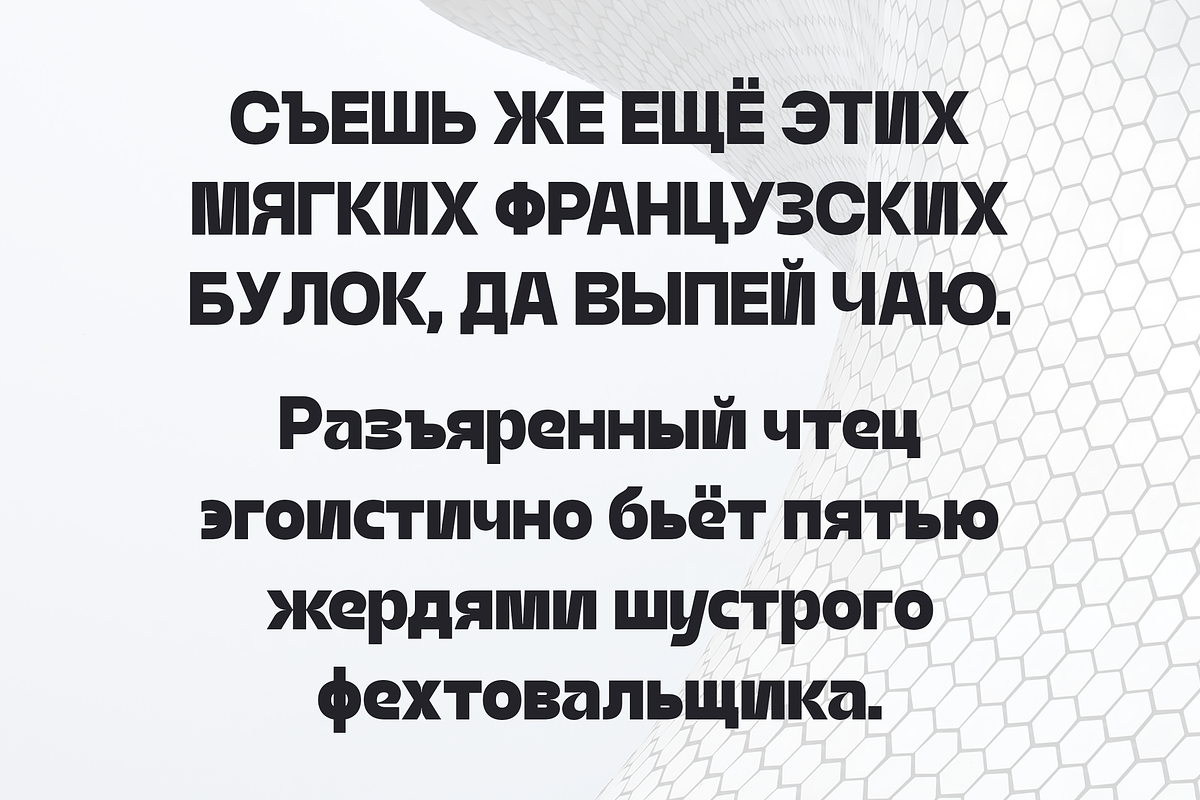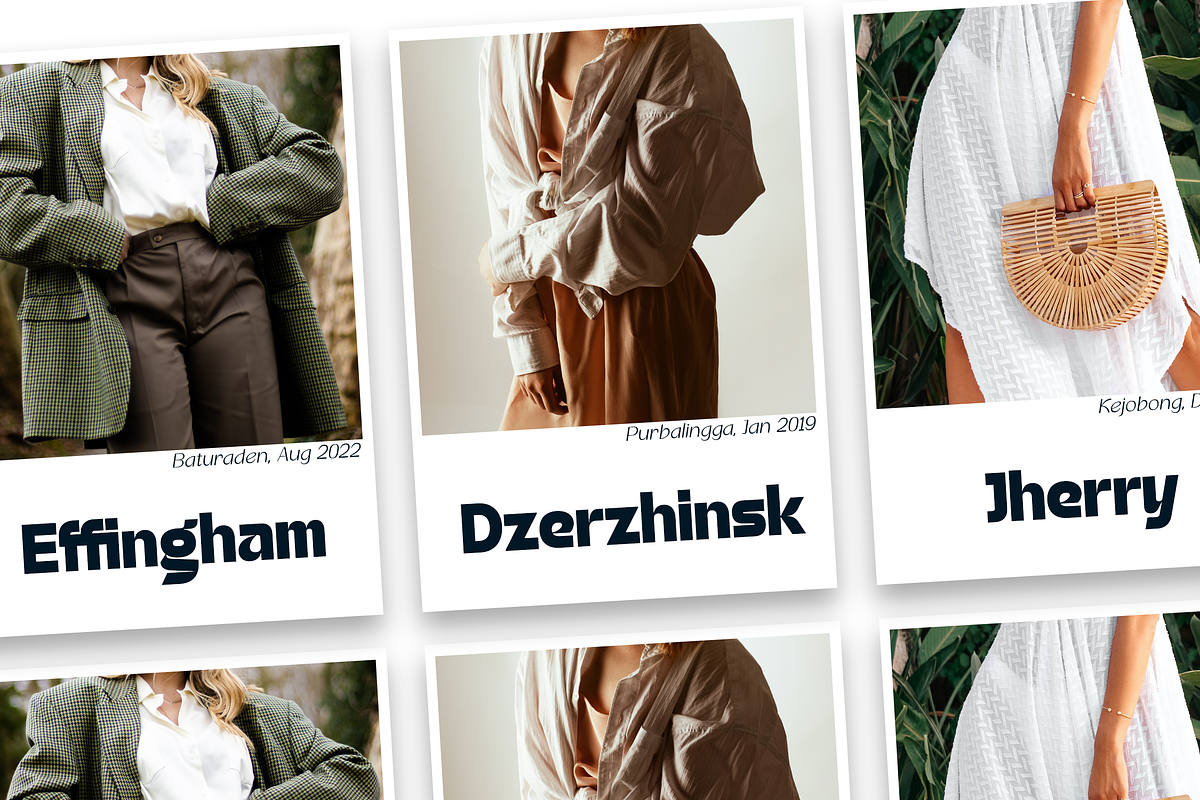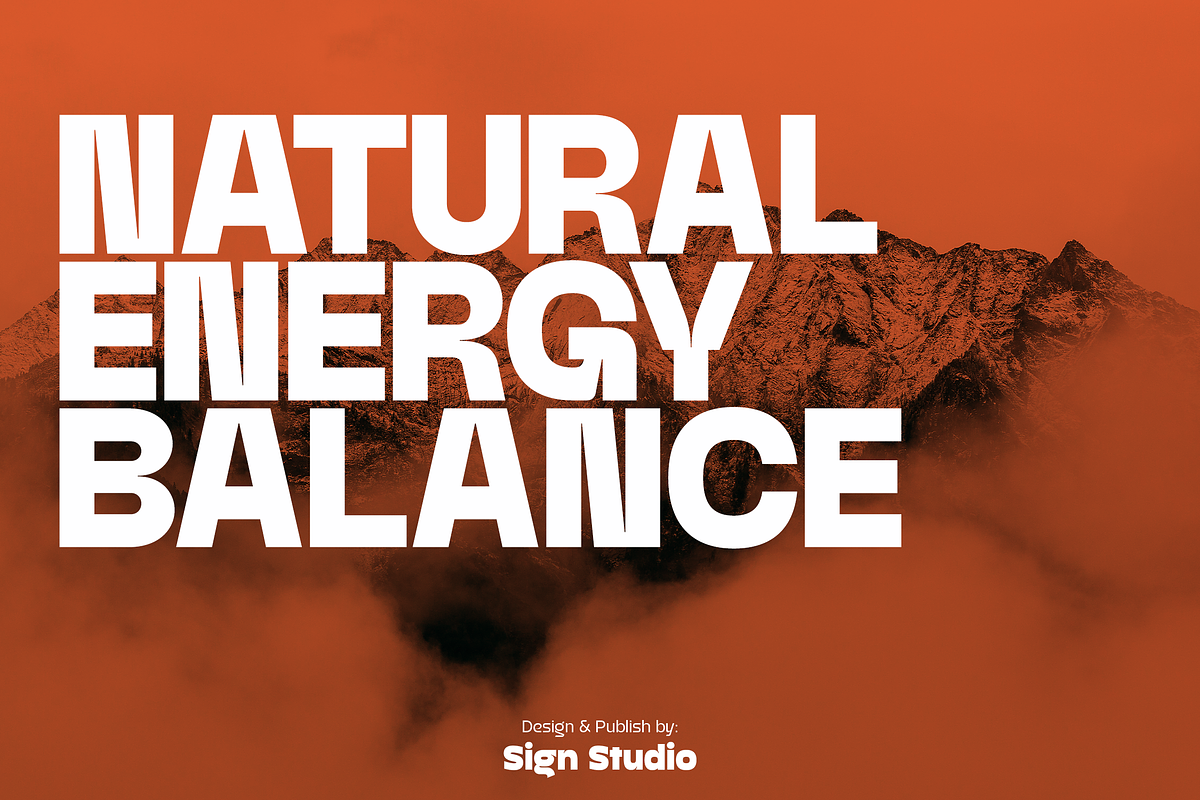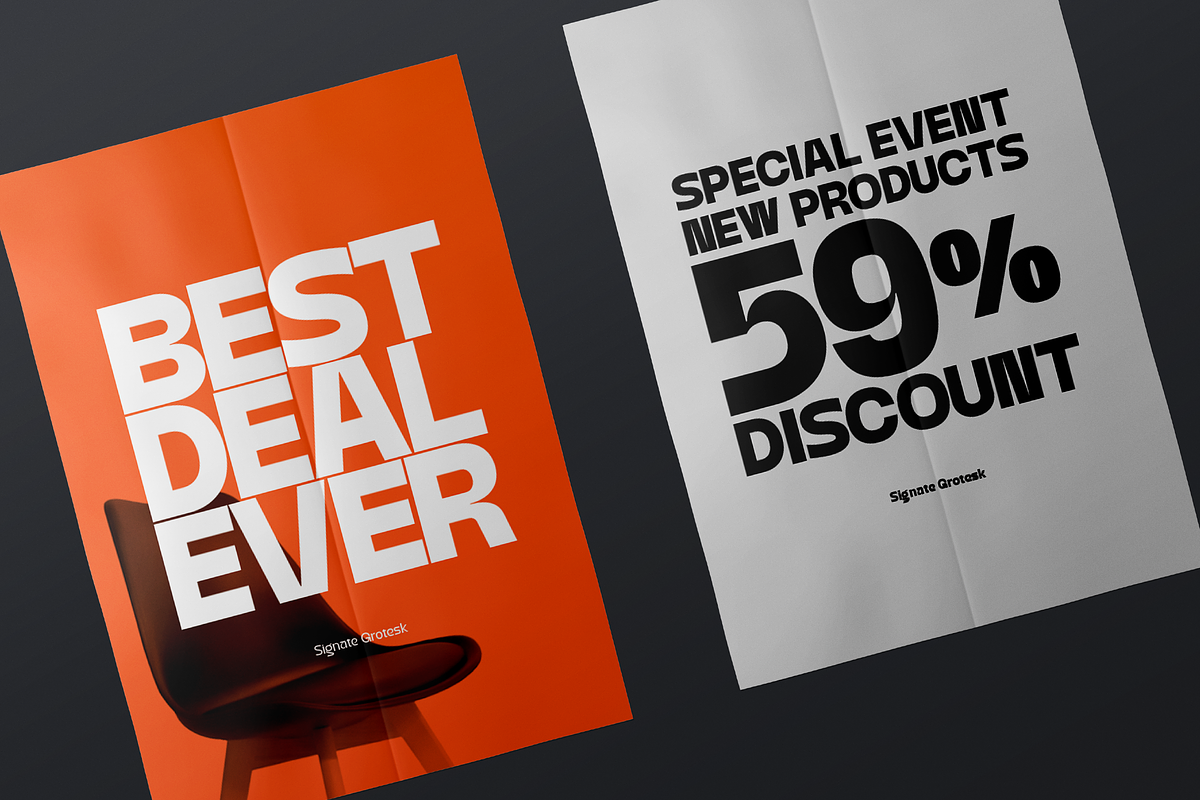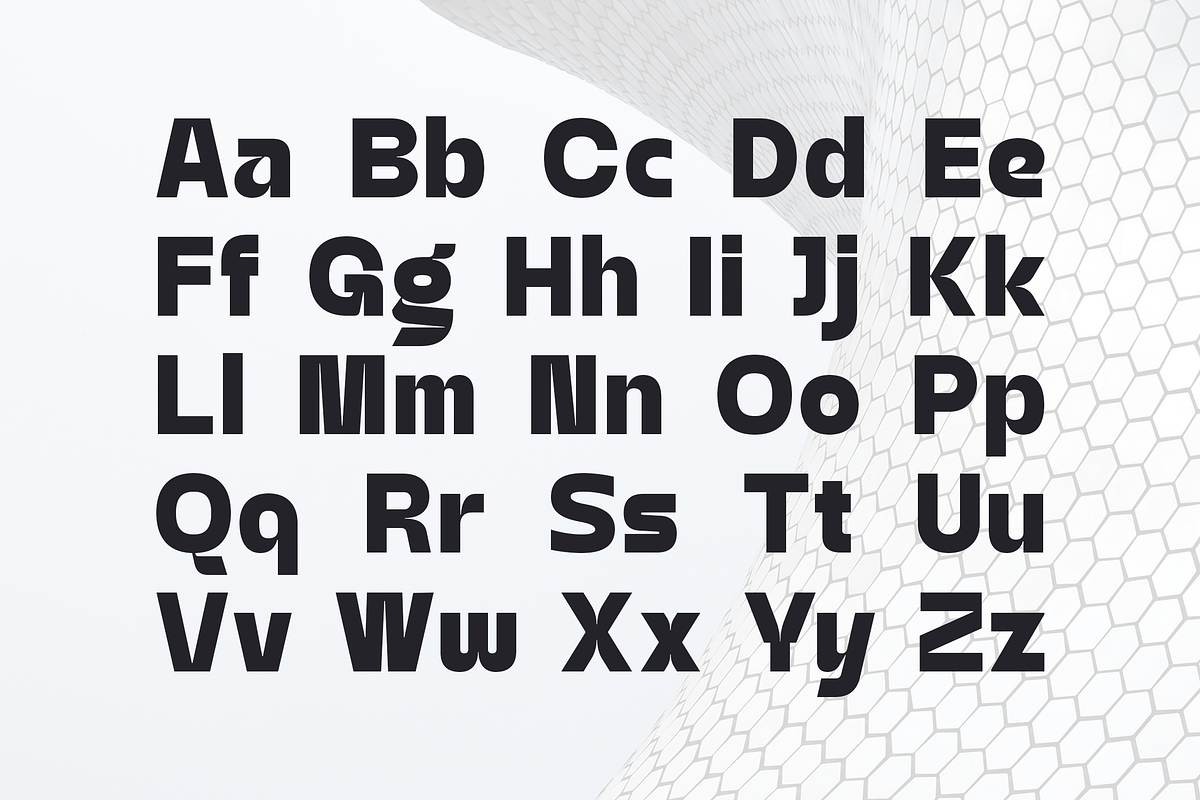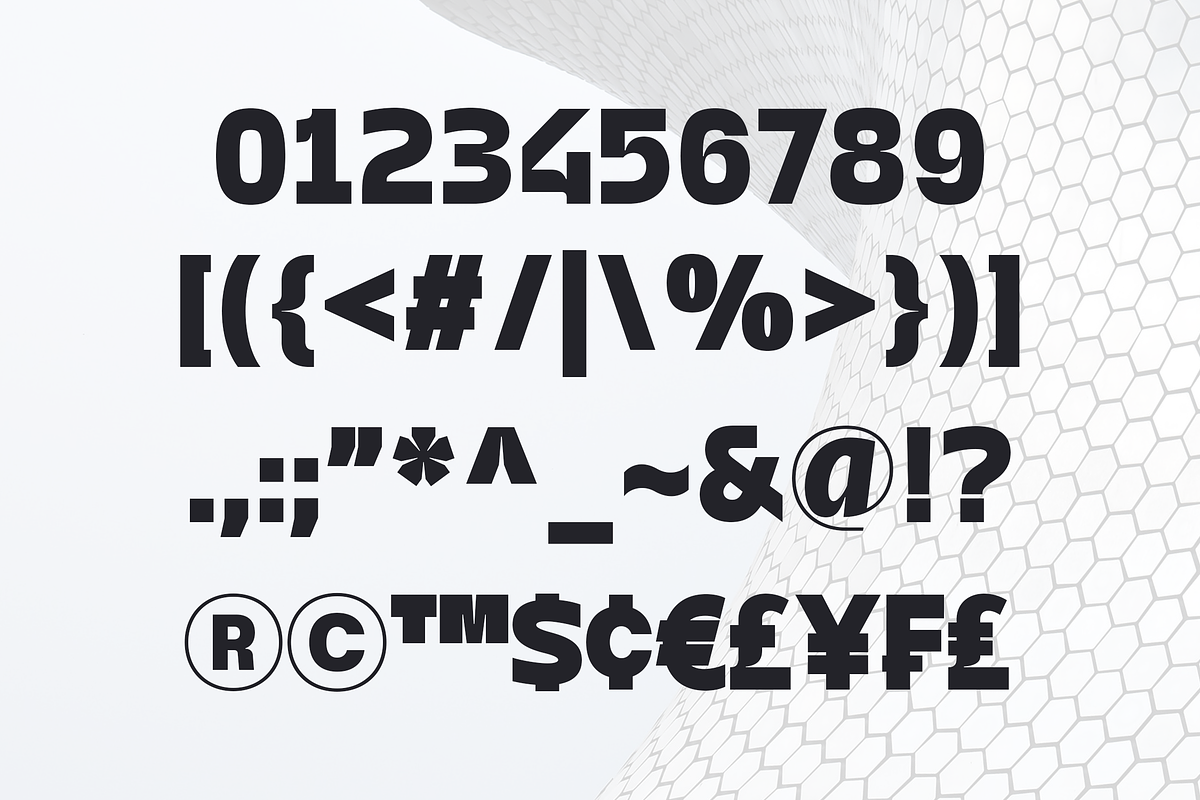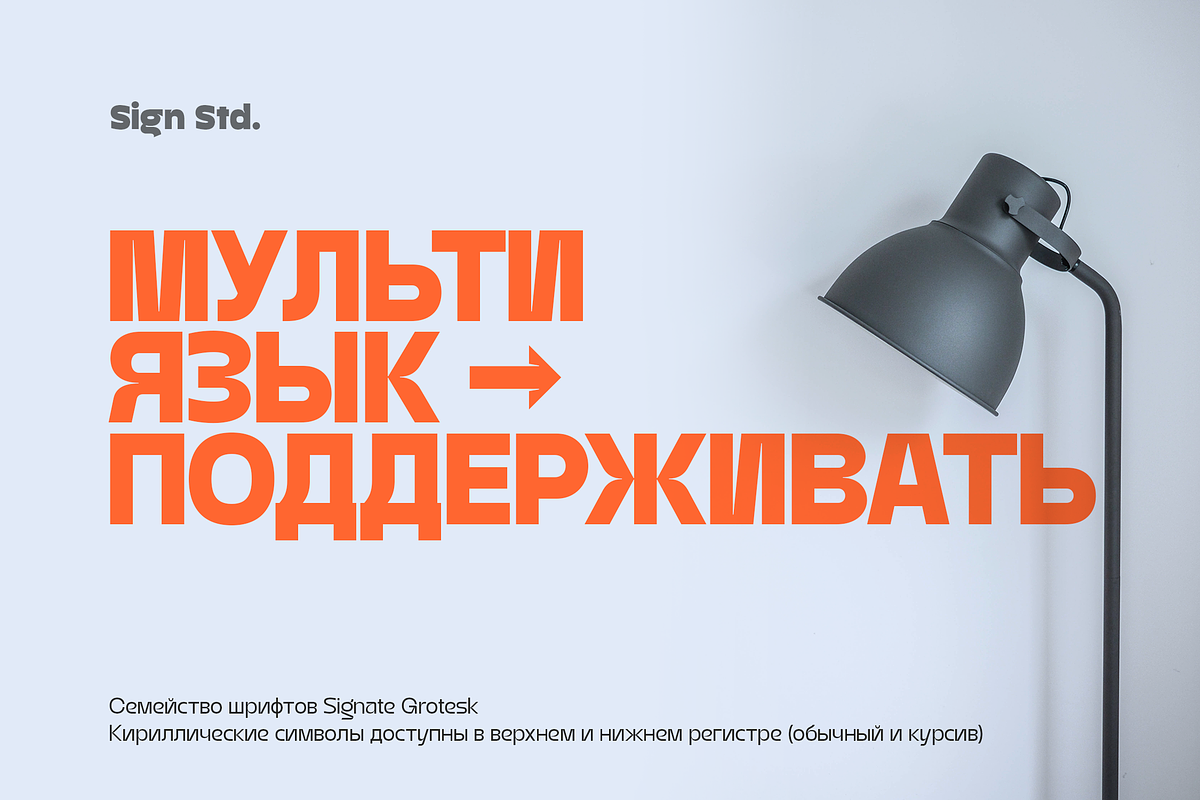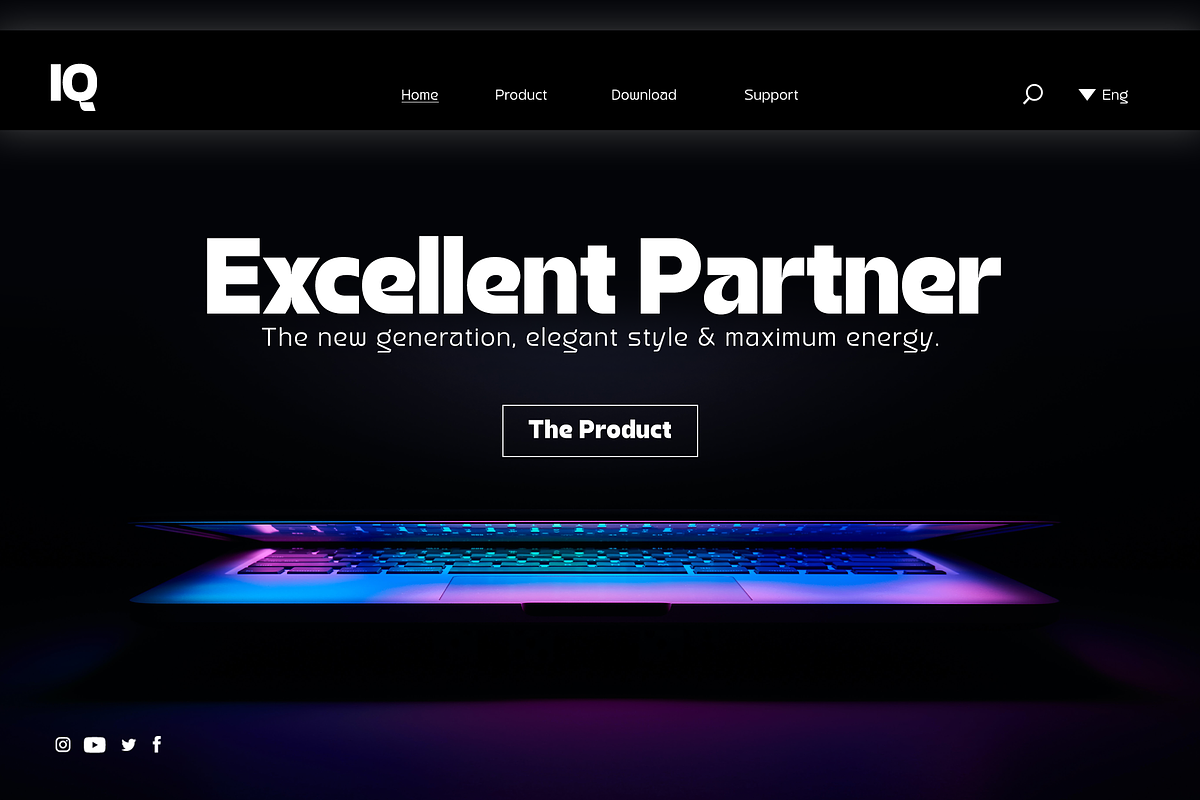
Signate Grotesk - Black Style
Signate Grotesk - Black is perfect for titles or any type of typography that needs extra attention in a design project. A modern look and high detail will really help improve the quality of each of your projects. It has Cyrillic characters as well as PUA codes.